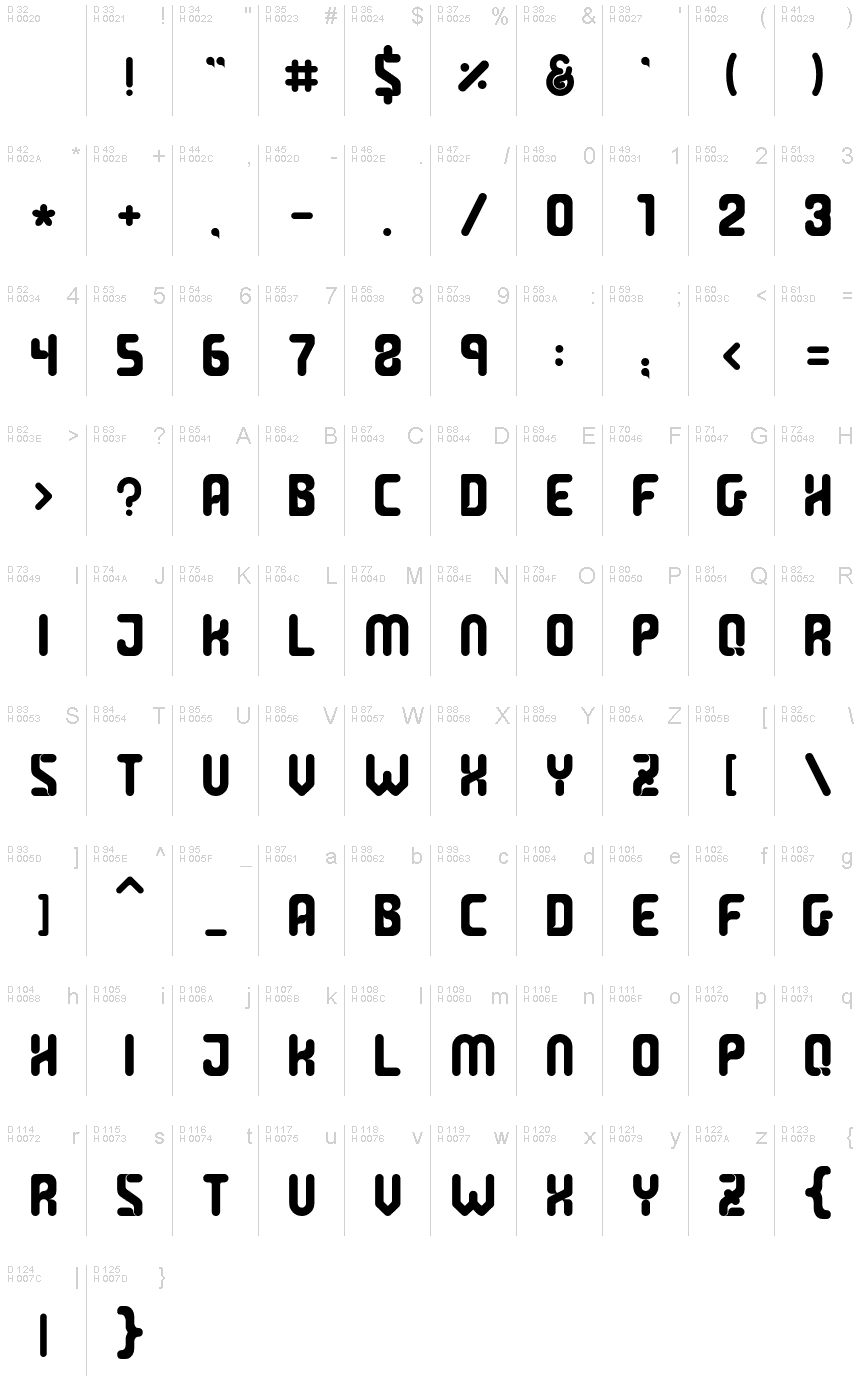
GIZMO
GIZMO is a bold, narrow, and round techno display font created by Bobo. This unique font is perfect for creating eye-catching titles and logos for modern technology projects or anything that requires a futuristic look.